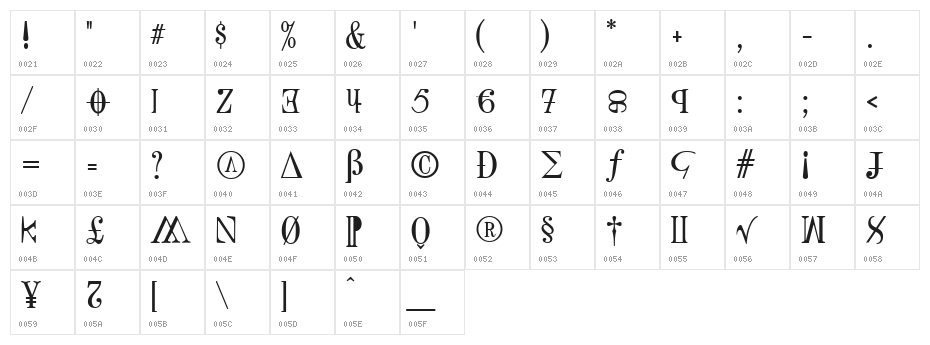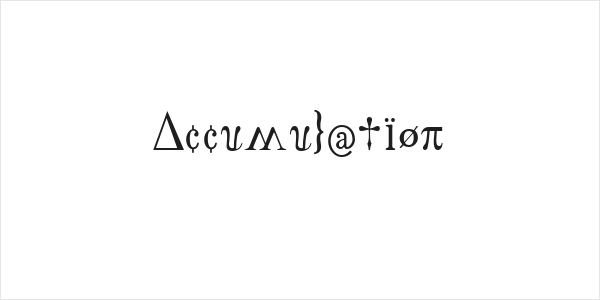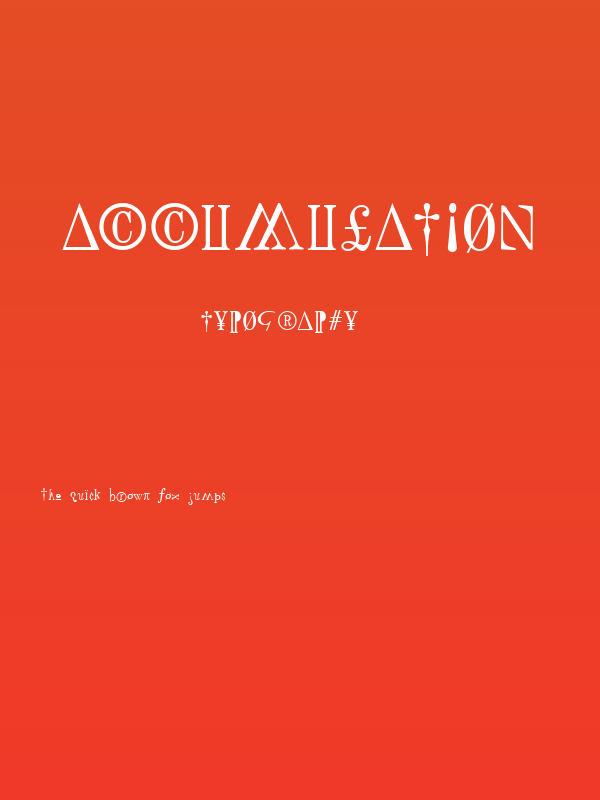
Accumulation Font
Accumulation Description
This font is a decorative and eclectic typeface that combines elements of both serif and sans-serif styles. It features unique and artistic letterforms with varying stroke thicknesses, creating a high contrast between thick and thin lines. The characters have an ornamental and whimsical appearance, with some incorporating unusual shapes and flourishes. The uppercase letters are bold and striking, while the lowercase letters maintain a playful and creative design. Special characters and numbers follow the same artistic theme, adding to the font's distinctive personality. This font is ideal for projects that require a bold and unconventional look.
| Use Case | Headlines, Logos, Artistic projects |
| Proposed Projects | Ideal for creative projects such as posters, album covers, branding, and artistic invitations. |